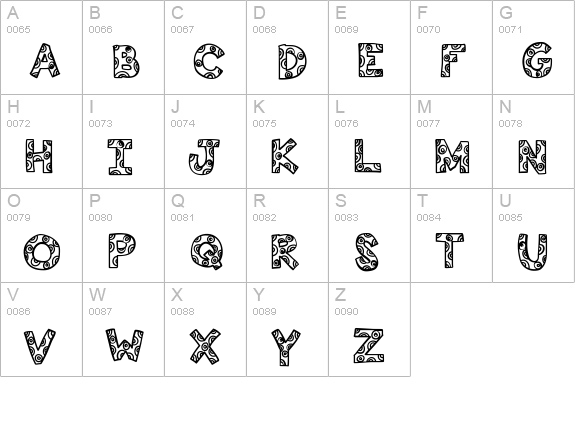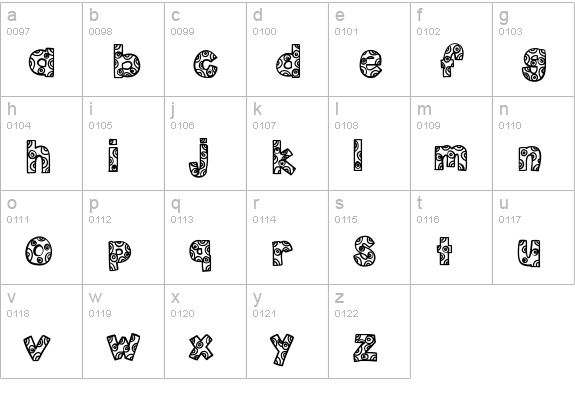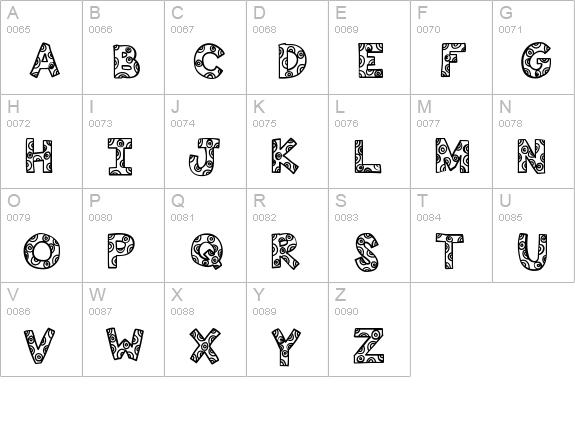
Introducing KBFunHouse, a whimsical and playful font that will bring a touch of joy to your designs. This font is perfect for adding a fun and lighthearted feel to any project, whether it's a children's book, a birthday invitation, or a playful logo. With its quirky and unique letterforms, KBFunHouse is sure to capture attention and add a sense of excitement to your designs. Each letter is carefully crafted with a handwritten feel, giving it a personal touch that is both charming and endearing. One of the best things about KBFunHouse is that it is absolutely free! Yes, you heard that right. This font is freely available to download at FontsMarket.com, allowing you to access its delightful charm without any cost. So whether you're a professional designer looking for a fun addition to your font library or a casual user in need of a font that exudes fun and creativity, KBFunHouse is the perfect choice. Don't miss out on this opportunity to add a touch of whimsy to your next project. Download KBFunHouse today from FontsMarket.com and let your creativity run wild.